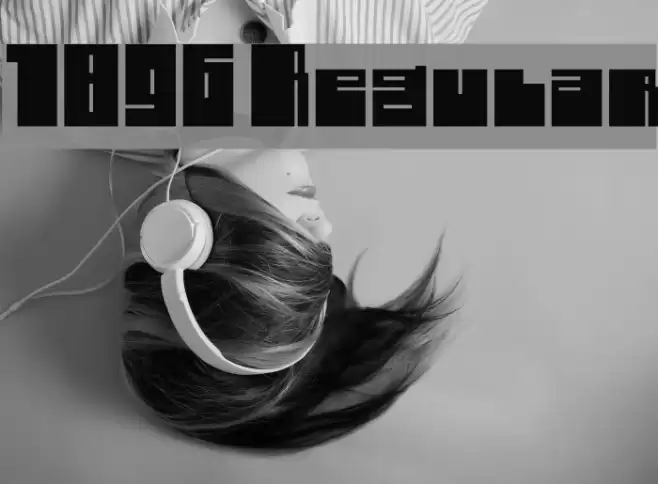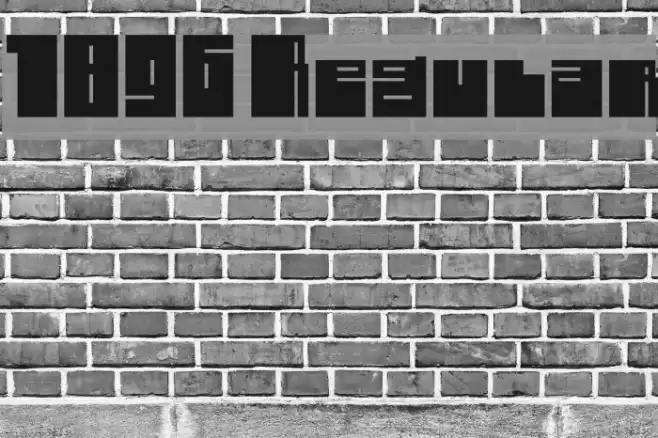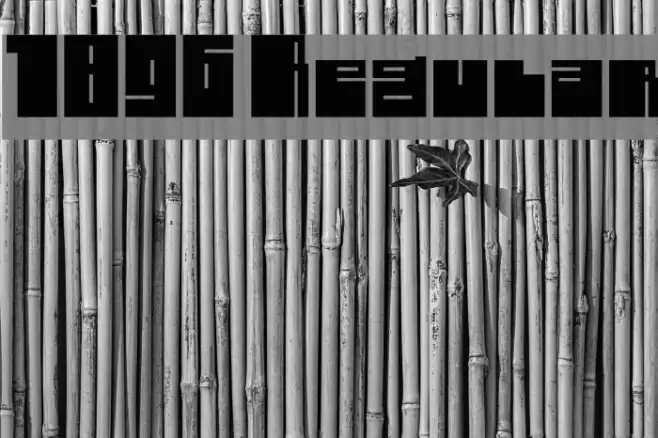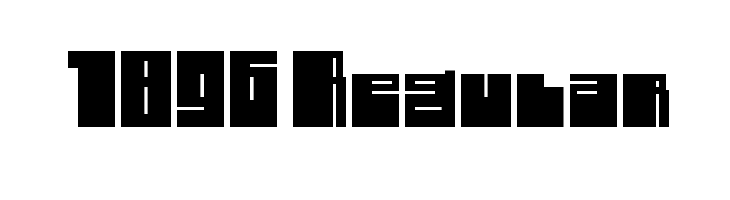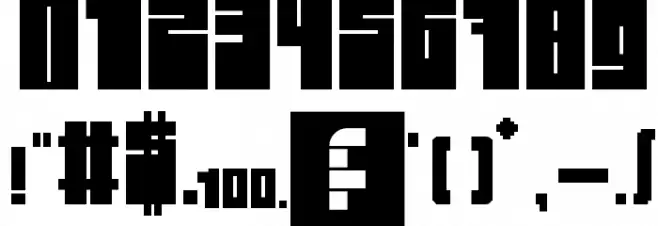
1896 Regular Font
1896 Regular Description
This font features a bold, geometric design with strong, block-like characters that convey a sense of strength and modernity. The uppercase and lowercase letters maintain a consistent width, creating a uniform appearance. The numerals and special characters follow the same bold, angular style, making them stand out prominently. The font's design is reminiscent of industrial or futuristic themes, with a focus on simplicity and impact. The characters are tightly spaced, enhancing the compact and cohesive look of the text.
A bold, geometric font with a strong, block-like design from Uncategorized fonts.
- Proposed Projects: Ideal for projects that require a modern, industrial feel such as posters, logos, and branding materials.
- Character Spacing: Tight